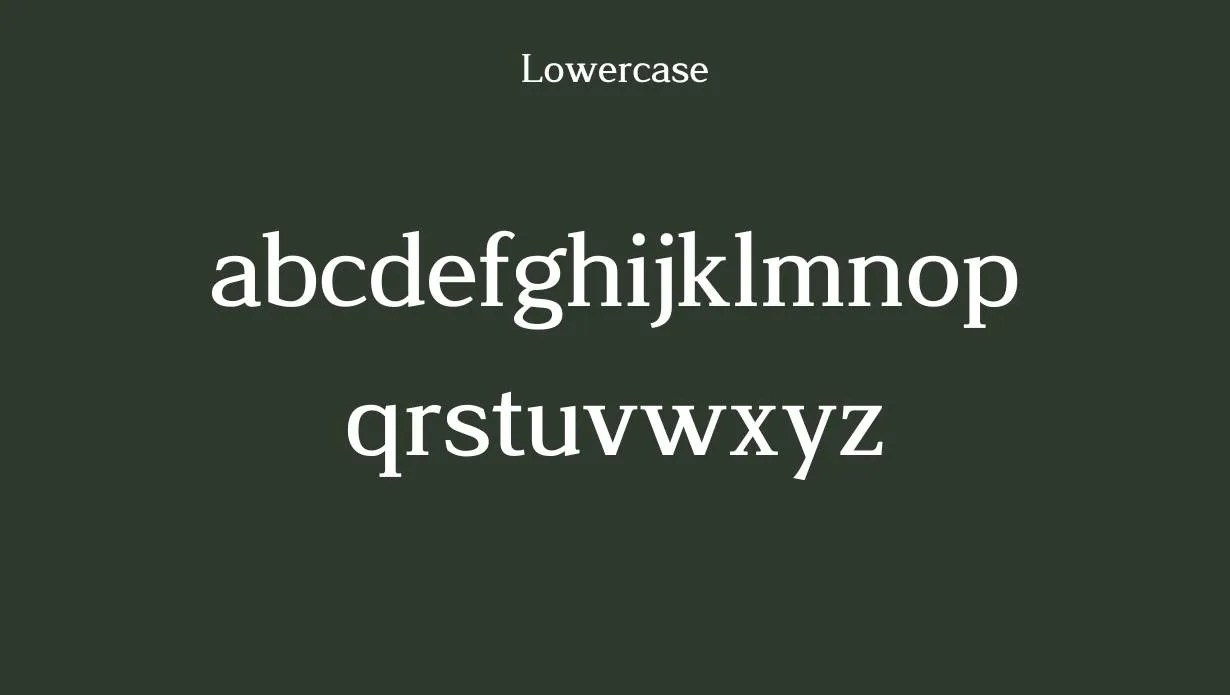
Best Font For Legibility . Explore the best fonts for reading: What are the best fonts for dyslexia? To save you trawling the internet (and getting sidetracked by browsing free web fonts), we’ve gathered the best fonts for accessibility,. Typefaces are the foundation of accessible visual reading experiences, so choosing a performant typeface that enhances legibility and readability for people with poor vision, learning. For a print version, consider garamond. For a digital version consider helvetica etext. Sans serif fonts like arial, helvetica, and open sans are often recommended due. Top legible fonts for website text content include sans serif fonts like roboto, open sans, and arial. These fonts are designed for. Choosing the right fonts for dyslexia involves prioritizing legibility and simplicity. Explore the best fonts for accessibility in our guide, offering tips on readability, ada/wcag compliance, and making digital content inclusive.
Explore the best fonts for reading: For a print version, consider garamond. Explore the best fonts for accessibility in our guide, offering tips on readability, ada/wcag compliance, and making digital content inclusive. What are the best fonts for dyslexia? Choosing the right fonts for dyslexia involves prioritizing legibility and simplicity. These fonts are designed for. Typefaces are the foundation of accessible visual reading experiences, so choosing a performant typeface that enhances legibility and readability for people with poor vision, learning. To save you trawling the internet (and getting sidetracked by browsing free web fonts), we’ve gathered the best fonts for accessibility,. For a digital version consider helvetica etext. Sans serif fonts like arial, helvetica, and open sans are often recommended due.
Best Font For Legibility Choosing the right fonts for dyslexia involves prioritizing legibility and simplicity. What are the best fonts for dyslexia? Sans serif fonts like arial, helvetica, and open sans are often recommended due. These fonts are designed for. To save you trawling the internet (and getting sidetracked by browsing free web fonts), we’ve gathered the best fonts for accessibility,. Choosing the right fonts for dyslexia involves prioritizing legibility and simplicity. Explore the best fonts for accessibility in our guide, offering tips on readability, ada/wcag compliance, and making digital content inclusive. For a digital version consider helvetica etext. Explore the best fonts for reading: Typefaces are the foundation of accessible visual reading experiences, so choosing a performant typeface that enhances legibility and readability for people with poor vision, learning. Top legible fonts for website text content include sans serif fonts like roboto, open sans, and arial. For a print version, consider garamond.
Best Small Font Discover The Elevate Legibility Best Font For Legibility To save you trawling the internet (and getting sidetracked by browsing free web fonts), we’ve gathered the best fonts for accessibility,. Explore the best fonts for reading: Explore the best fonts for accessibility in our guide, offering tips on readability, ada/wcag compliance, and making digital content inclusive. Typefaces are the foundation of accessible visual reading experiences, so choosing a performant. Best Font For Legibility.
Best Small Font Discover The Elevate Legibility Best Font For Legibility For a print version, consider garamond. Typefaces are the foundation of accessible visual reading experiences, so choosing a performant typeface that enhances legibility and readability for people with poor vision, learning. These fonts are designed for. What are the best fonts for dyslexia? Explore the best fonts for reading: For a digital version consider helvetica etext. To save you trawling. Best Font For Legibility.
Principles of Choosing Fonts for Logo Design Best Font For Legibility Sans serif fonts like arial, helvetica, and open sans are often recommended due. These fonts are designed for. For a print version, consider garamond. Top legible fonts for website text content include sans serif fonts like roboto, open sans, and arial. Typefaces are the foundation of accessible visual reading experiences, so choosing a performant typeface that enhances legibility and readability. Best Font For Legibility.
10 Best Fonts for Design Striking the Balance Between Creativity Best Font For Legibility To save you trawling the internet (and getting sidetracked by browsing free web fonts), we’ve gathered the best fonts for accessibility,. Typefaces are the foundation of accessible visual reading experiences, so choosing a performant typeface that enhances legibility and readability for people with poor vision, learning. What are the best fonts for dyslexia? Choosing the right fonts for dyslexia involves. Best Font For Legibility.
5 Things To Remember When Selecting Fonts For Your UI/UX Design UX/UI Best Font For Legibility For a digital version consider helvetica etext. Choosing the right fonts for dyslexia involves prioritizing legibility and simplicity. Sans serif fonts like arial, helvetica, and open sans are often recommended due. To save you trawling the internet (and getting sidetracked by browsing free web fonts), we’ve gathered the best fonts for accessibility,. Explore the best fonts for reading: Explore the. Best Font For Legibility.
Best fonts for legal documents a complete guide Best Font For Legibility What are the best fonts for dyslexia? For a print version, consider garamond. These fonts are designed for. To save you trawling the internet (and getting sidetracked by browsing free web fonts), we’ve gathered the best fonts for accessibility,. Top legible fonts for website text content include sans serif fonts like roboto, open sans, and arial. Explore the best fonts. Best Font For Legibility.
Best Fonts for Law Firms Best Font For Legibility Explore the best fonts for accessibility in our guide, offering tips on readability, ada/wcag compliance, and making digital content inclusive. What are the best fonts for dyslexia? Explore the best fonts for reading: Choosing the right fonts for dyslexia involves prioritizing legibility and simplicity. For a print version, consider garamond. Top legible fonts for website text content include sans serif. Best Font For Legibility.
Choosing the best font for your brand a key aspect in brand guides Best Font For Legibility Explore the best fonts for reading: Explore the best fonts for accessibility in our guide, offering tips on readability, ada/wcag compliance, and making digital content inclusive. Top legible fonts for website text content include sans serif fonts like roboto, open sans, and arial. These fonts are designed for. For a print version, consider garamond. Choosing the right fonts for dyslexia. Best Font For Legibility.